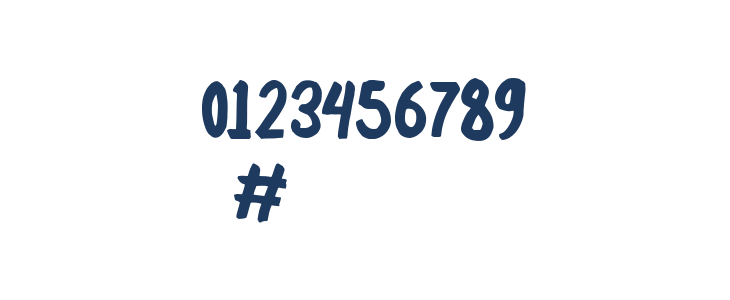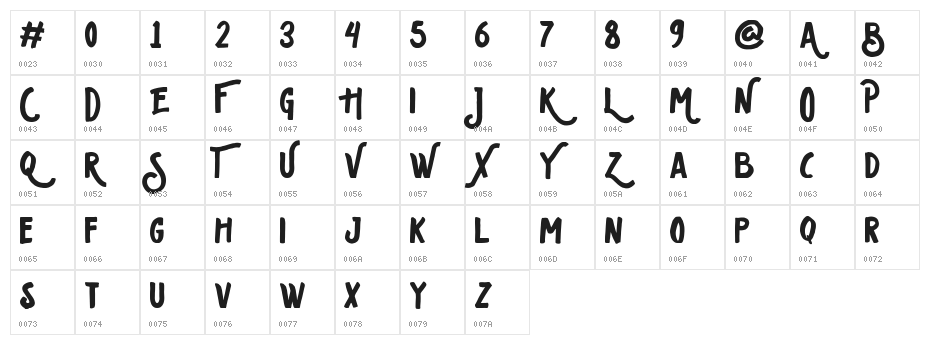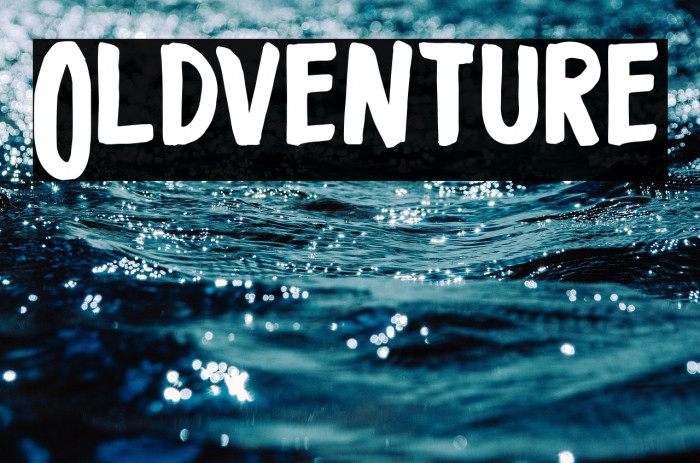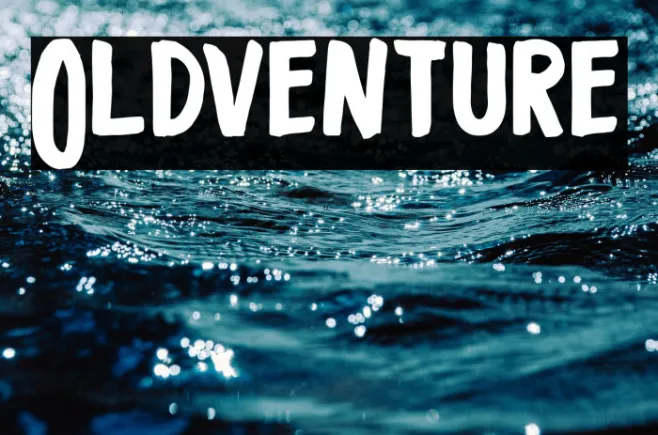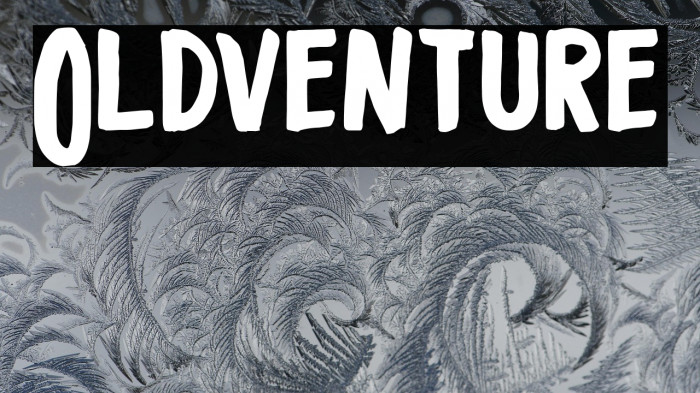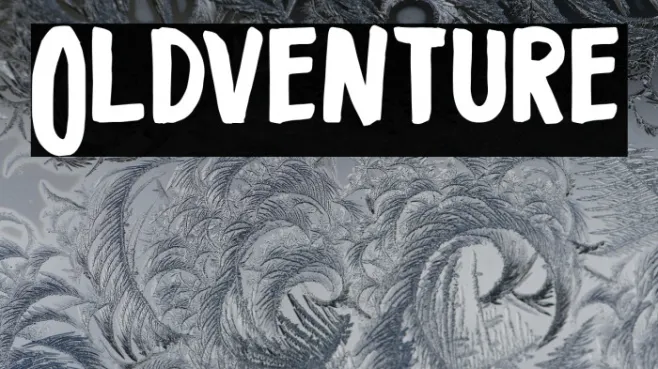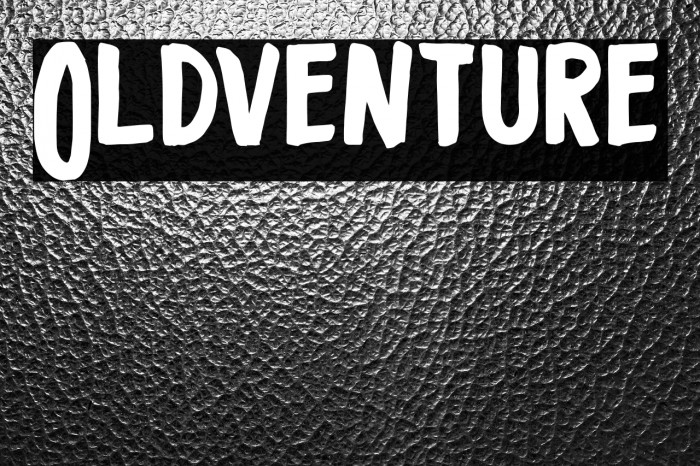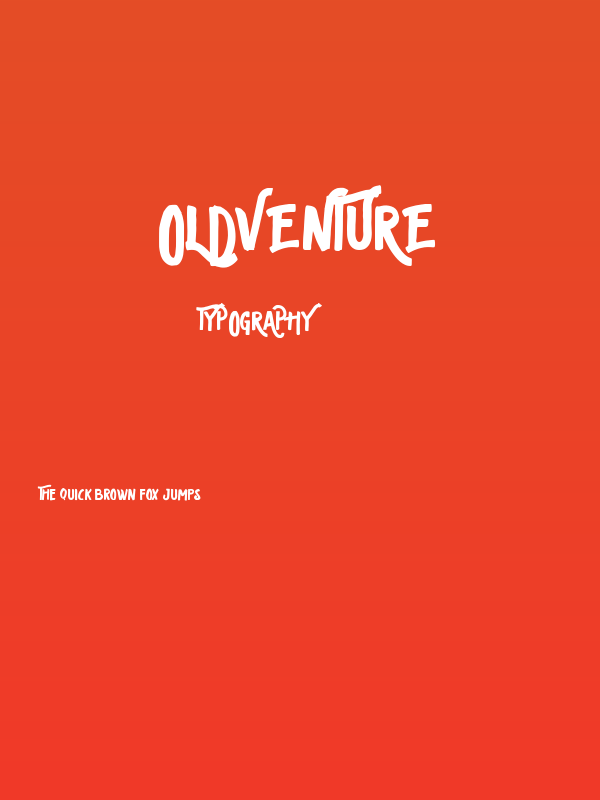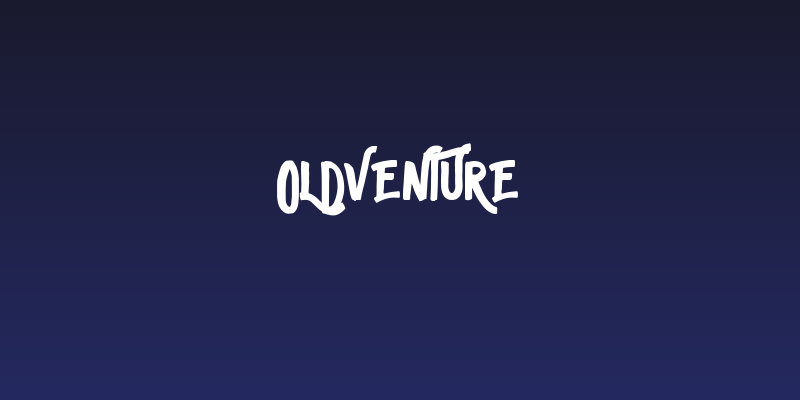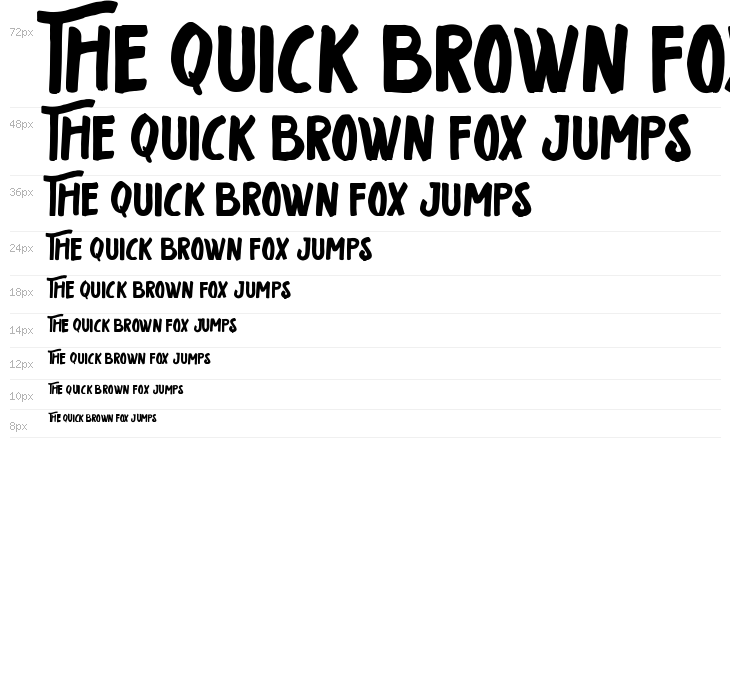
This font exudes a playful and bold character, with its hand-drawn, irregular strokes that give it a lively and dynamic appearance. The uppercase letters are particularly expressive, featuring varying heights and widths that add to its whimsical charm. The lowercase letters maintain this playful style, ensuring consistency throughout the typeface. The numbers are equally bold and maintain the same hand-crafted feel, making them stand out in any design. The special characters are designed to match the overall aesthetic, ensuring a cohesive look. This font is perfect for projects that require a touch of personality and creativity.
| Overall Style | Playful, Creative |
| Proposed Projects | Ideal for children's books, playful branding, creative posters, and eye-catching headlines. |